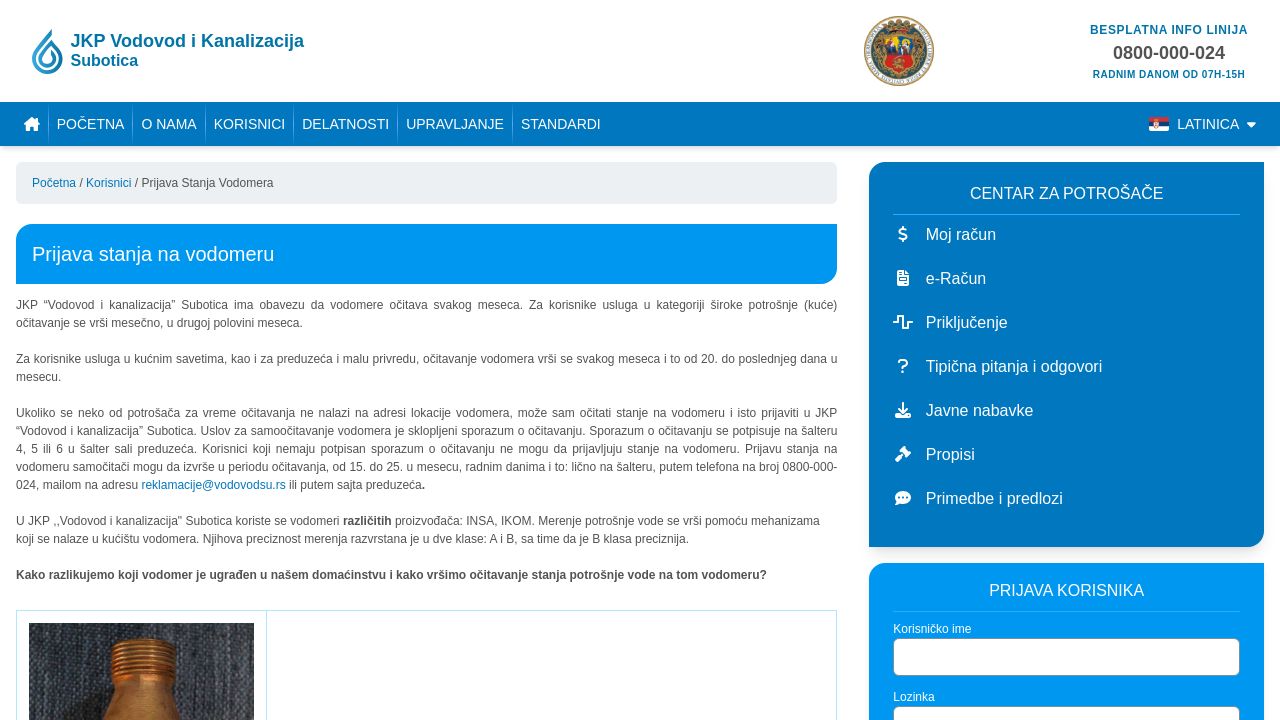
Vodovod Subotica - Prijava stanja vodomera
What fonts does Vodovodsu use?
Vodovod Subotica, operating in the water supply and sanitation sector, utilizes a distinct typographic approach with swiper-icons and Verdana. The custom swiper-icons enhance user interaction, reflecting the brand's focus on service efficiency. Meanwhile, Verdana's straightforward design ensures readability, appealing to the wide audience that relies on their monthly water meter readings. This thoughtful selection underscores the brand's commitment to clarity and accessibility in its communications.
Frequently asked questions about Vodovodsu.rs's fonts
What primary fonts does vodovodsu.rs use?
vodovodsu.rs primarily uses swiper-icons for custom icons and Verdana as its main text font. These choices support clear communication.
How does Verdana compare to other fonts?
Verdana is known for its legibility on screens, making it a popular choice over alternatives like Arial or Helvetica, especially for web content.
What styles and weights are available for these fonts?
Both swiper-icons and Verdana on vodovodsu.rs utilize the regular weight of 400. Verdana is widely available in various weights, enhancing versatility.